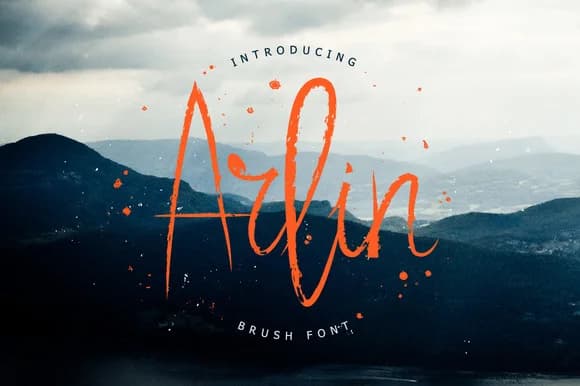
Arlin Font by ChekArt is a warm, flowing script that combines genuine handwritten character with polished readability throughout its letterforms. The typeface features graceful strokes with organic movement, delivering that personal touch designers seek when traditional typefaces feel too stiff or impersonal. Each curve carries the authenticity of real penmanship while remaining clear enough for both display and body text applications, making it surprisingly versatile.
This handwritten style shines across numerous creative projects, from high-end wedding invitation suites and personalized thank-you card sets to artisan product packaging and boutique branding initiatives. Whether you're designing eco-friendly product labels for small-batch food brands, creating custom signage for lifestyle retailers, or developing romantic social media graphics for engagement-focused campaigns, Arlin adapts beautifully. The typeface also works wonderfully for editorial headers, book cover typography, and hand-drawn aesthetic blog graphics where authenticity and character matter more than mechanical uniformity.
Arlin Font is a script font that shines as a display or heading face. Pair it with a clean sans-serif or serif font for body text β the contrast creates a clear hierarchy while the two styles stay balanced and easy to read.
Arlin Font